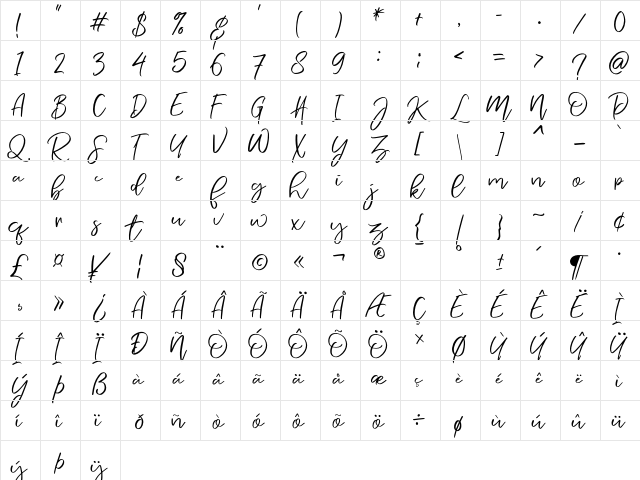
Nermola Script Regular
| Foundry | Alit Design |
| Designer | Alit Suarnegara |
Design Context for Nermola Script Typeface
Nermola Script brings a calligraphic fluidity to the page — its connecting strokes and expressive curves give it an unmistakably human quality.